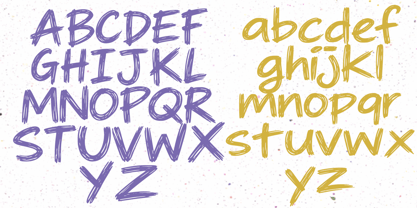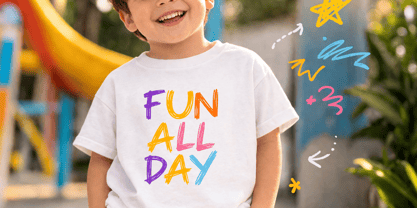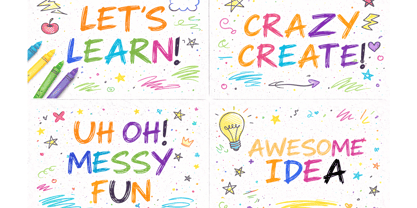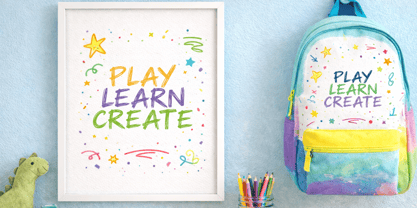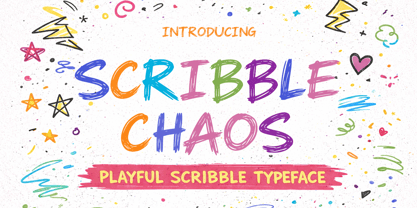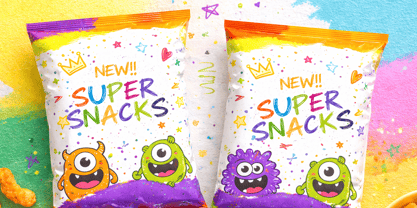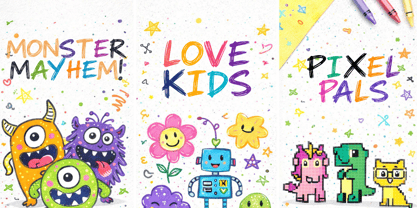
Scribble Chaos
by Cocodesign
The Scribble Chaos Font Family was designed by Muhammad Zaini and published by Cocodesign. Scribble Chaos contains 2 styles and family package options. More about this family
Scribble Chaos is a playful scribble typeface that delivers a fun, energetic, and creative vibe in every design. Inspired by spontaneous hand-drawn strokes, each letter features imperfect lines and organic shapes that feel lively and expressive. The colorful brush style adds a cheerful and eye-catching touch, creating a bold and joyful visual presence. Perfect for kids-themed designs, posters, packaging, branding, and social media content, this font brings a casual and artistic feel to any project. Scribble Chaos offers a modern handwritten look with dynamic movement, making text appear more vibrant, unique, and full of character.